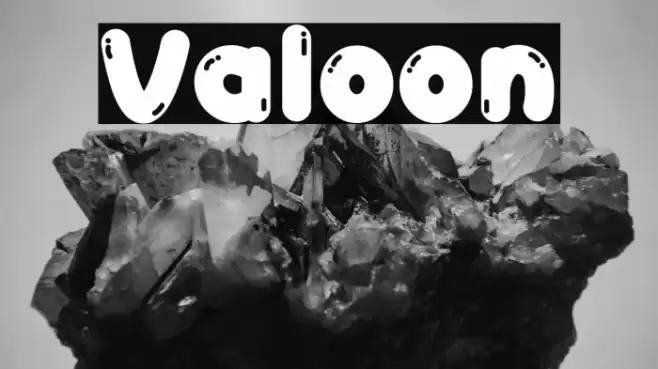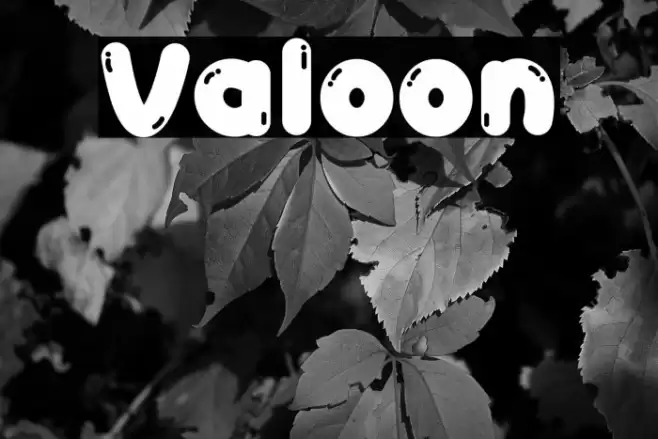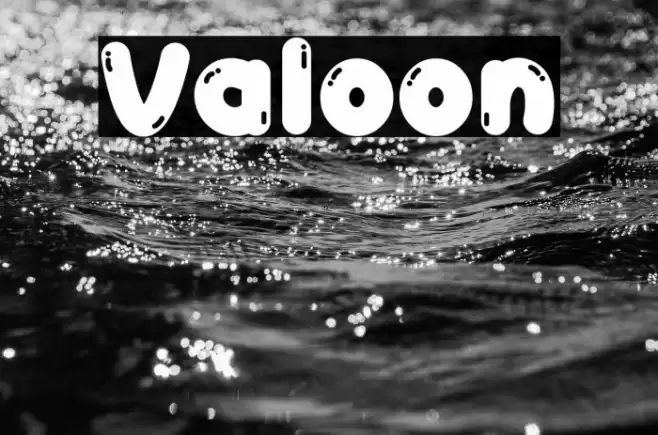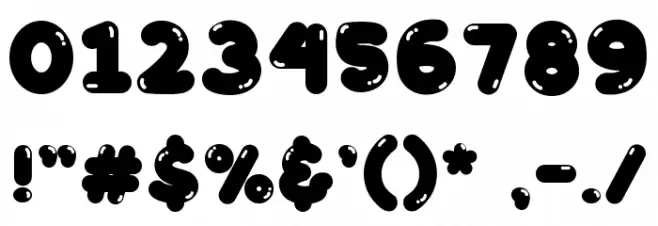
Valoon Font
Valoon Description
This playful and bold font features rounded, bubbly characters with a cartoonish flair. The letters are thick and have a consistent stroke width, giving them a strong presence. The font includes both uppercase and lowercase letters, numerals, and a variety of special characters. The design is characterized by its whimsical and friendly appearance, making it suitable for projects that require a fun and informal touch. The font's unique style is enhanced by subtle highlights within each character, adding depth and visual interest.
A playful, bold font with rounded, bubbly characters and a cartoonish style from Uncategorized fonts.
- Proposed Projects: Ideal for children's books, playful branding, party invitations, and any design needing a fun, informal touch.
- Overall Style: Playful, Whimsical